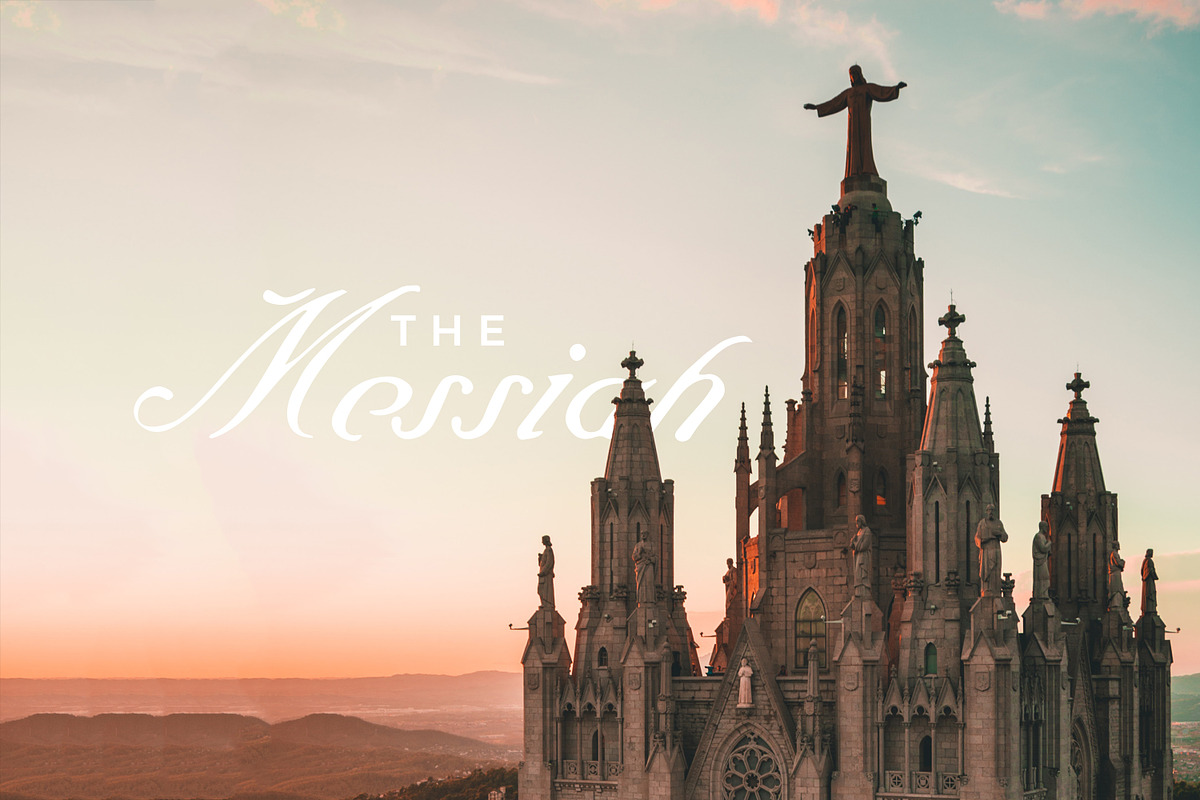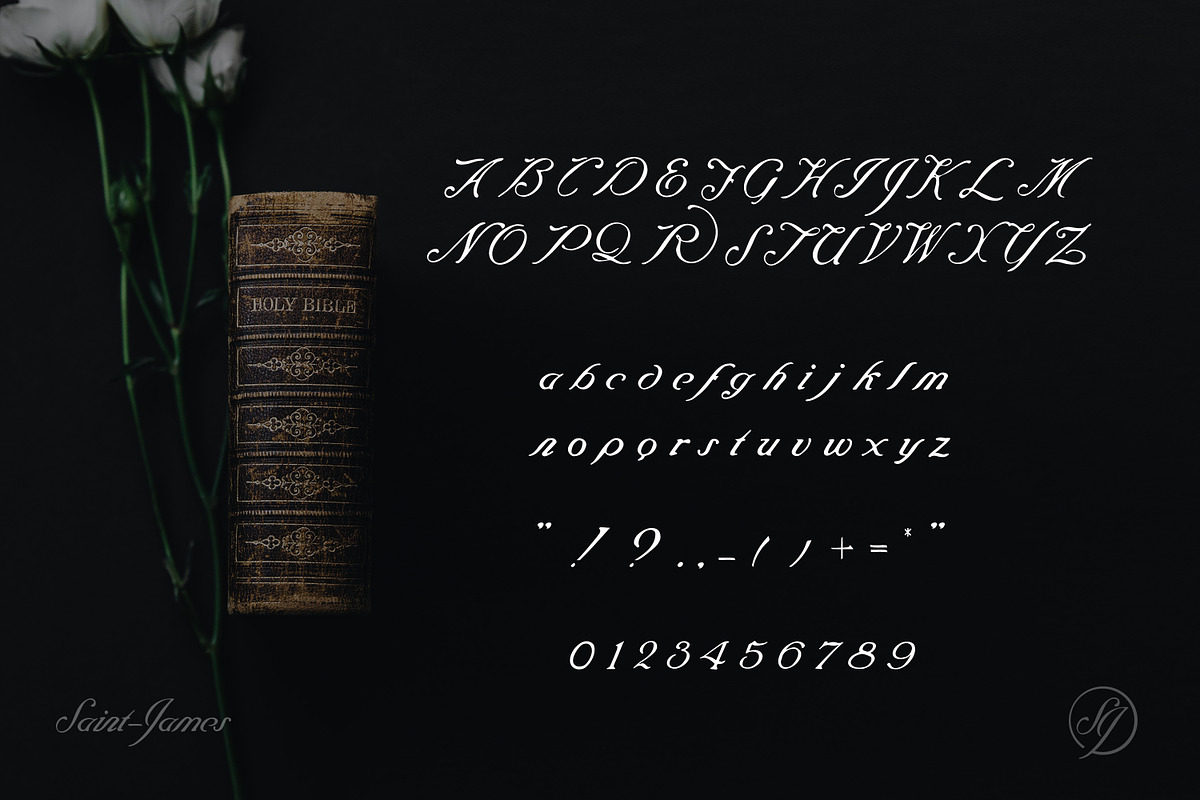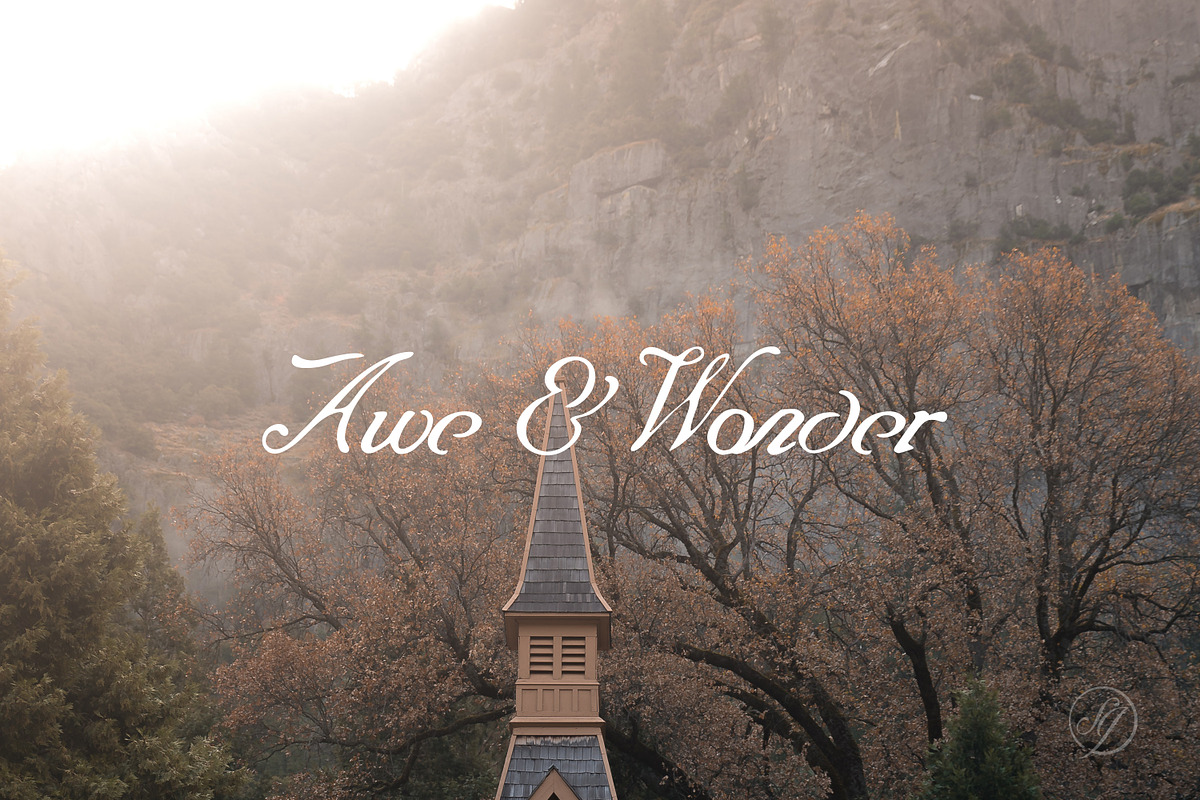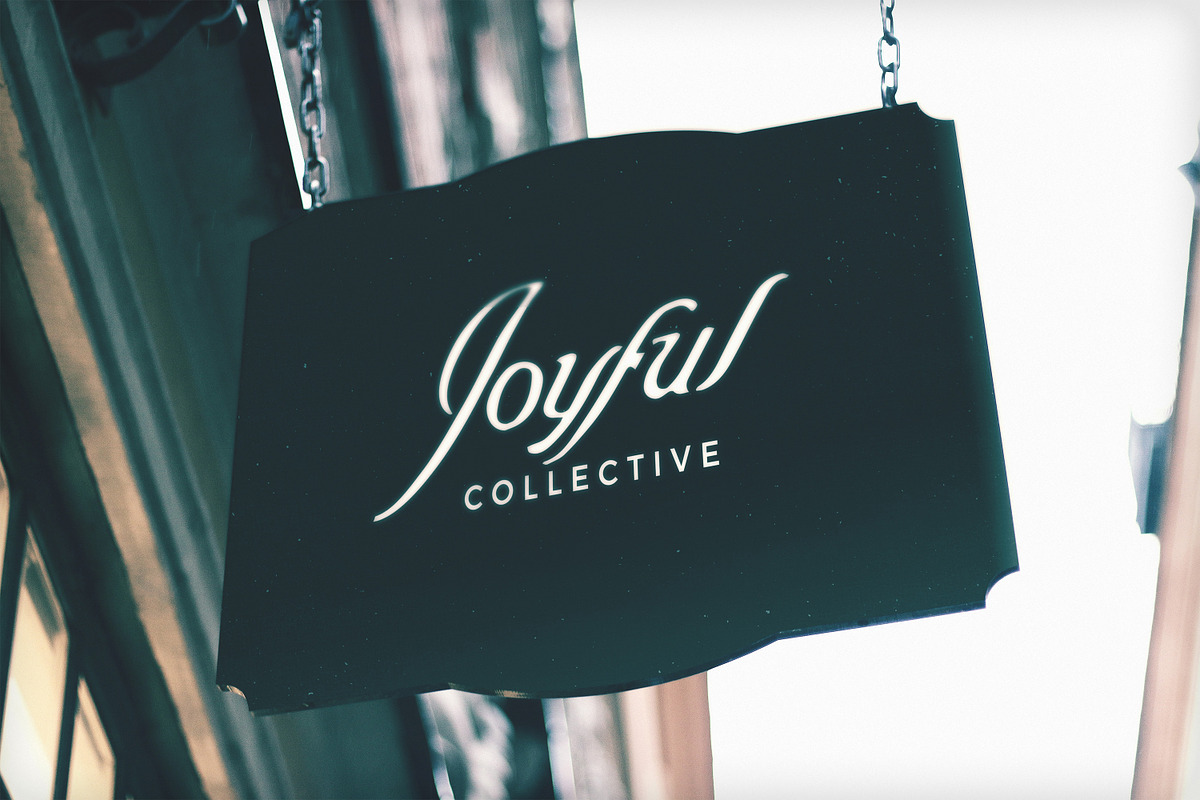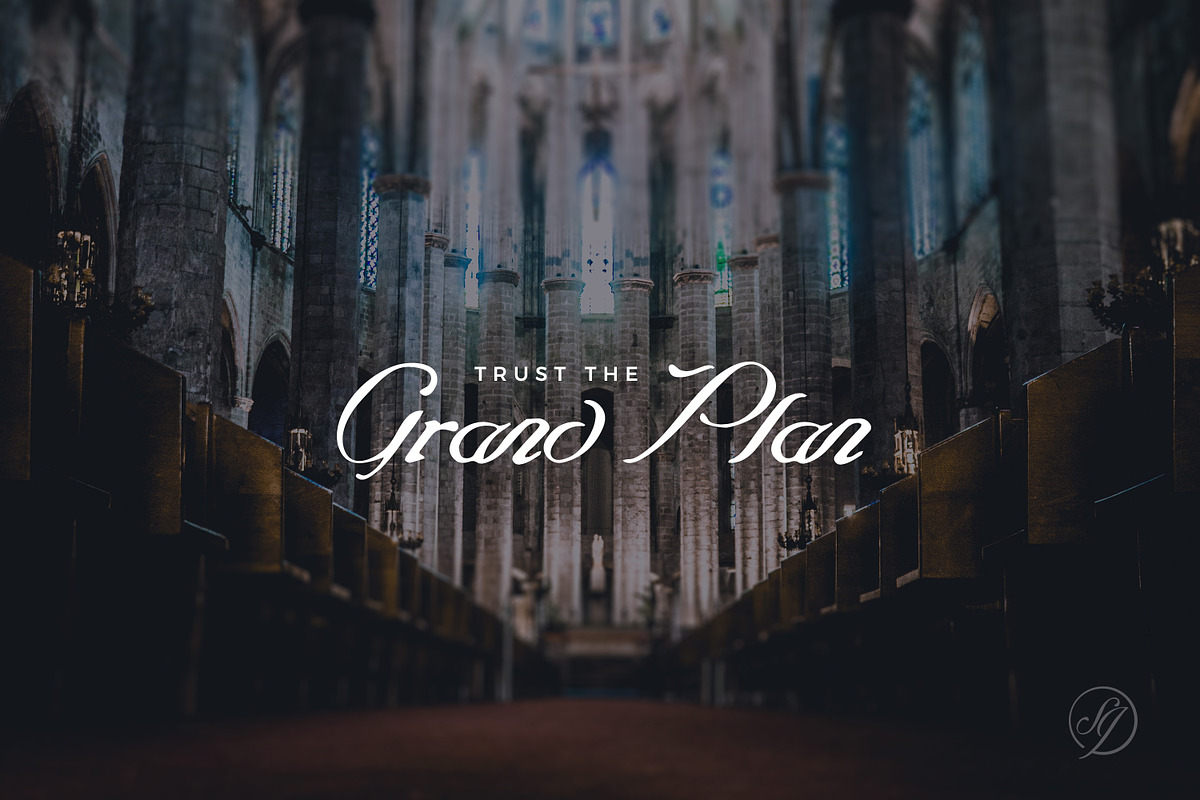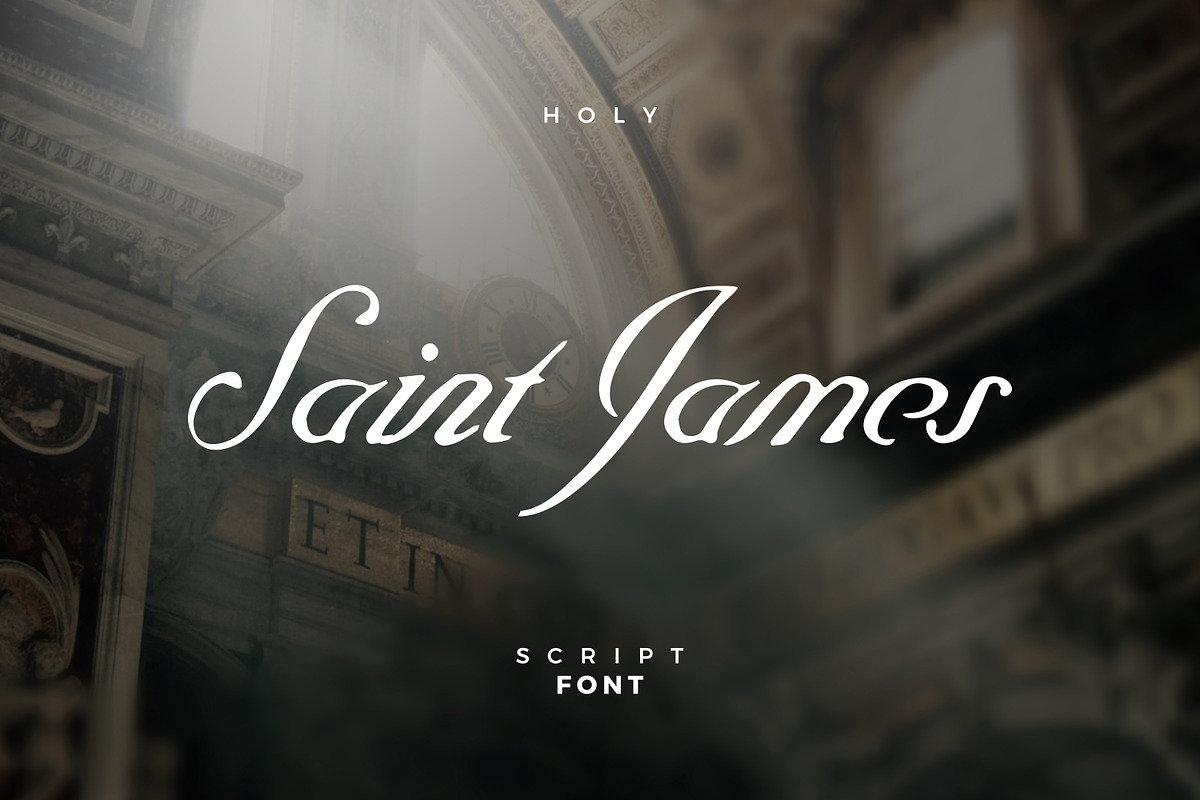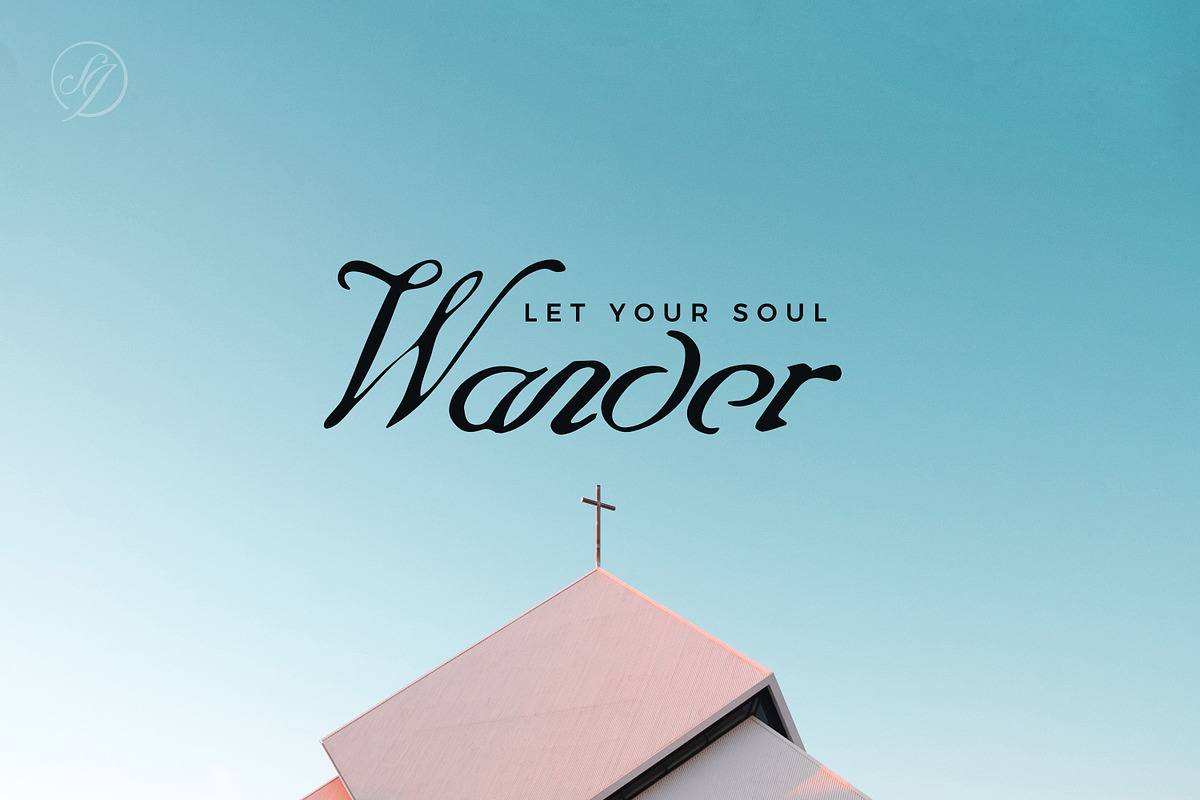
Saint James /The Blessed Script Font
Saint James - An Elegant Script Font with a vintage vibe.
The font is heavily influenced by religious writings and hand written calligraphy that leaves a very personal and prestigious vibe.
Saint James is best suited for wedding invitations, logos, branding and social media posts.
Pairs perfectly with any modern Sans-Serif font, such as Montserrat (used in the previews)